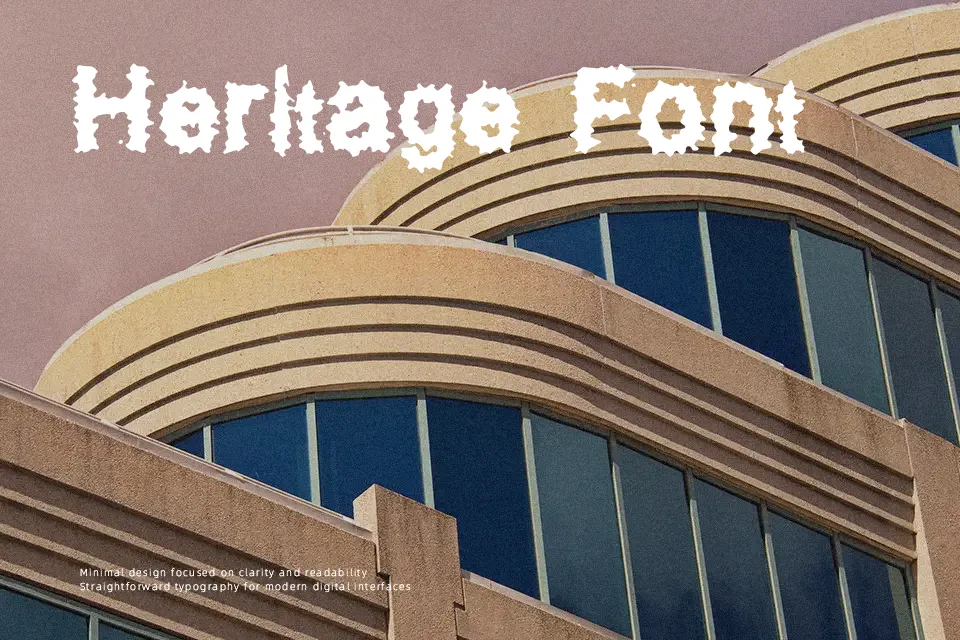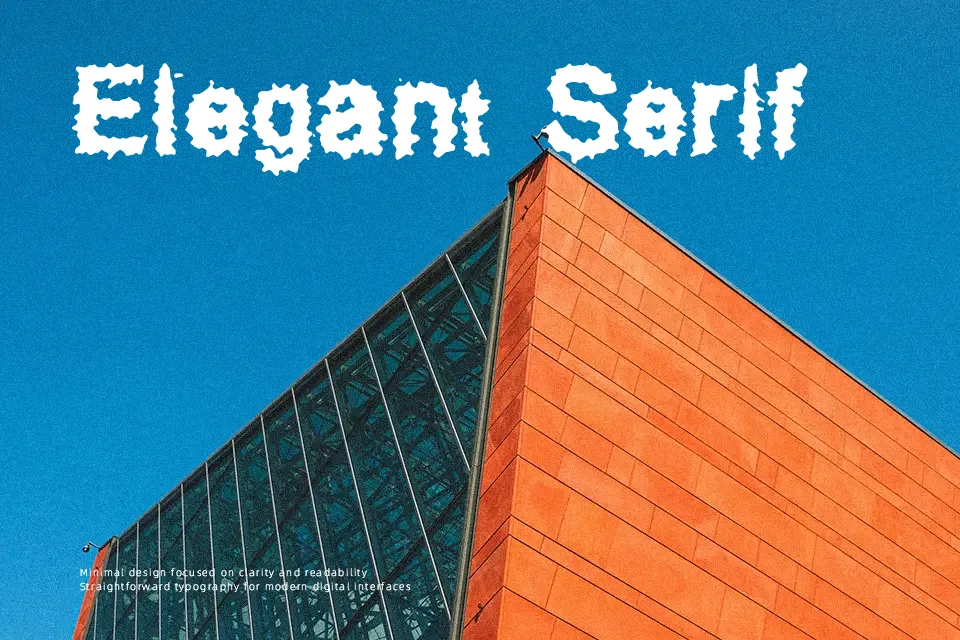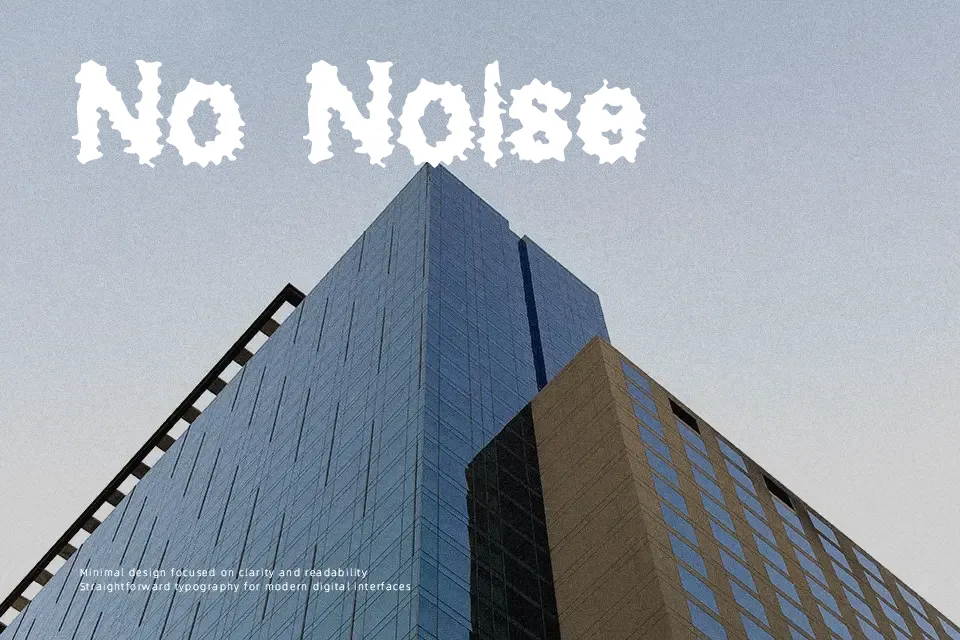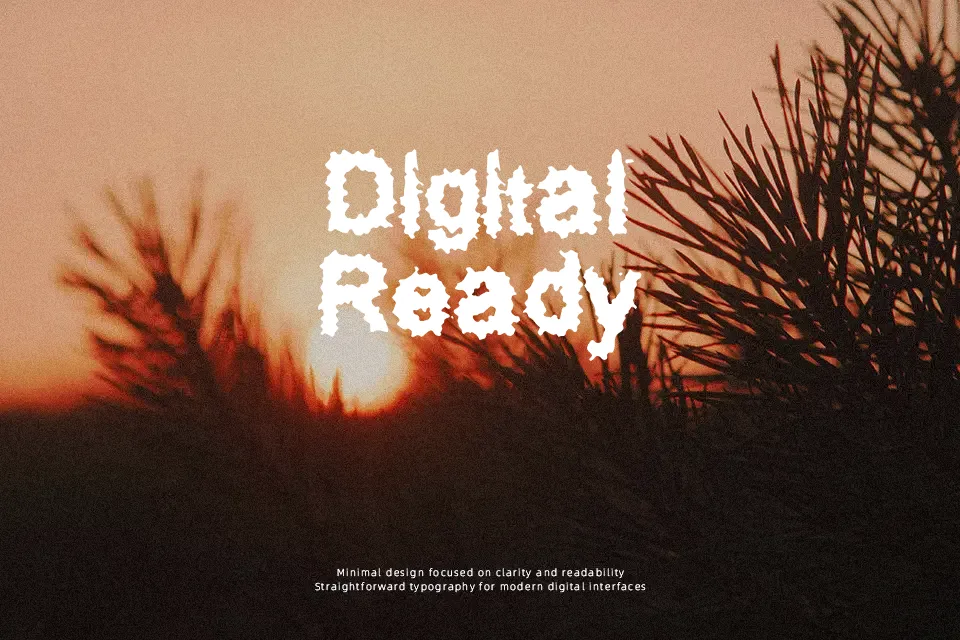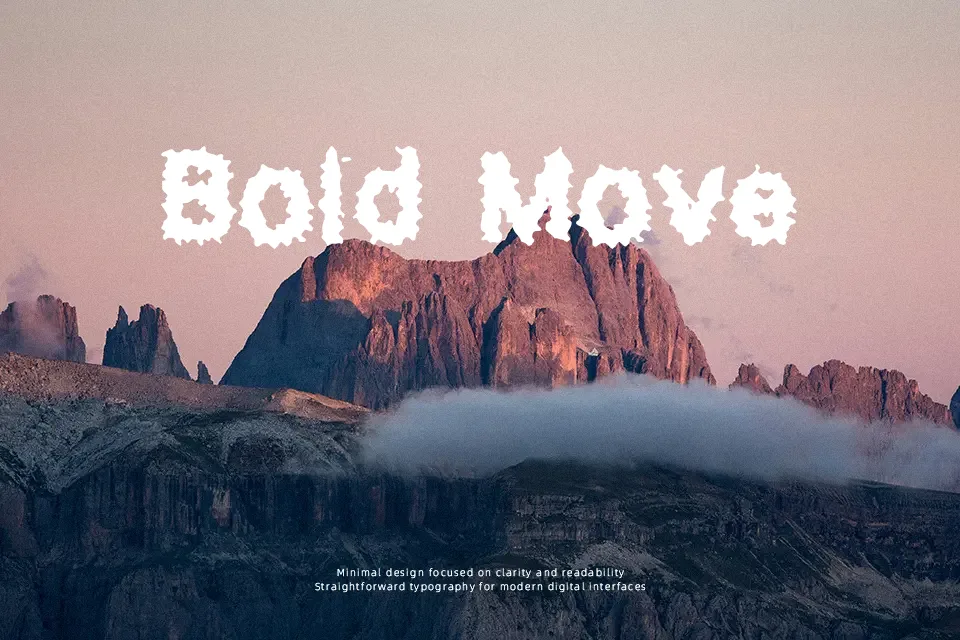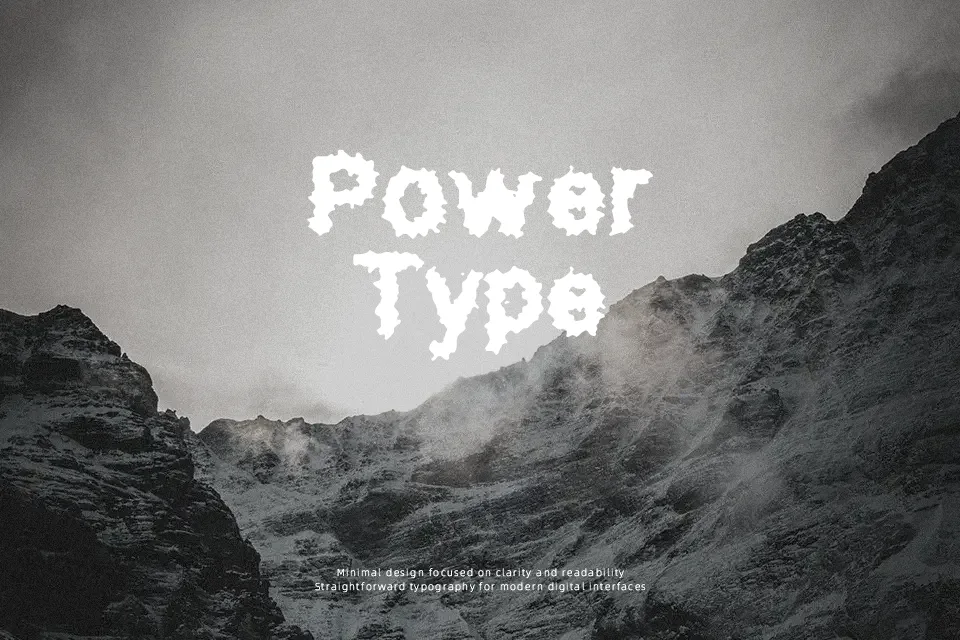
Splatz BRK Font
Designed by Ænigma
Splatz BRK Font showcases heavy, uneven letterforms with fragmented outer edges that mimic dried paint drips and splattered ink droplets. Each character exhibits thick, asymmetrical strokes alongside narrow interior counters and tight default spacing, creating an intense graphic rhythm across words. The design delivers maximum visual punch in large-scale event flyers, streetwear graphics, and video game title cards where raw energy is essential. However, the complex perimeter noise and heavy stroke weight severely impair readability when rendered in continuous body paragraphs or small captions. Designers will find the typeface operates best as a dominant focal element rather than supporting text.
Best For: skate deck graphics, punk concert flyers, video game titles, streetwear apparel
Not Ideal For: continuous body text, mobile interface labels, corporate financial reports, dense editorial layouts
Perfect for film, gaming, and headline, with a dark and decorative style.